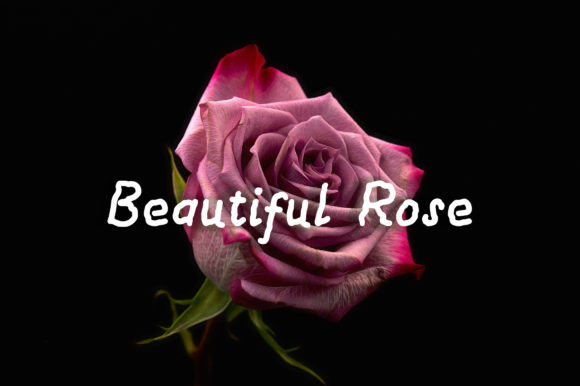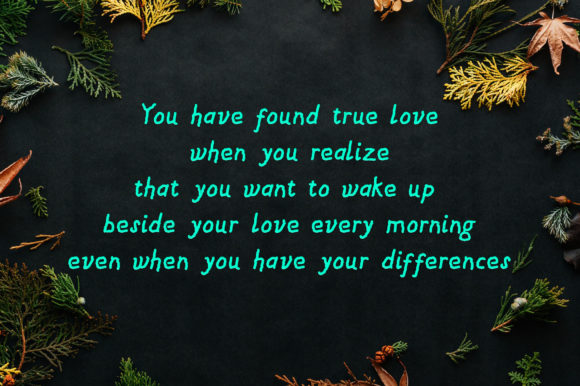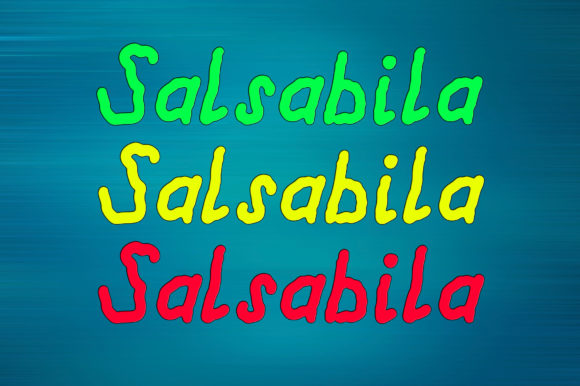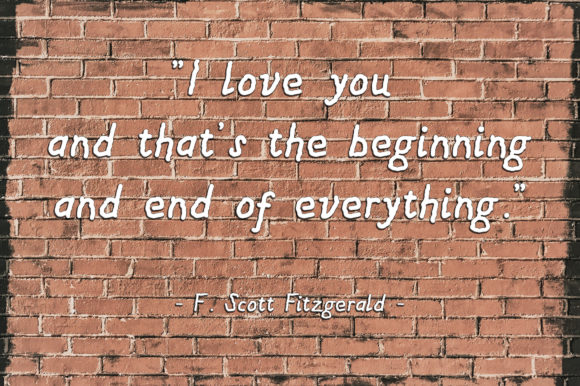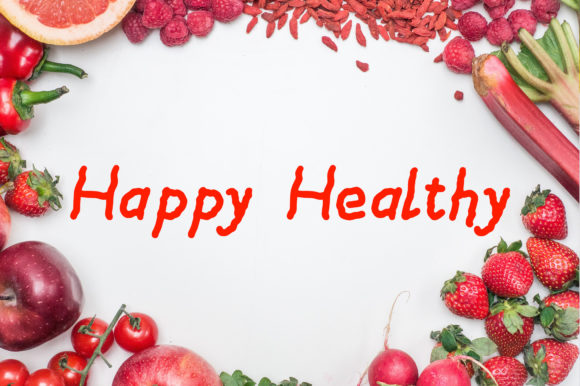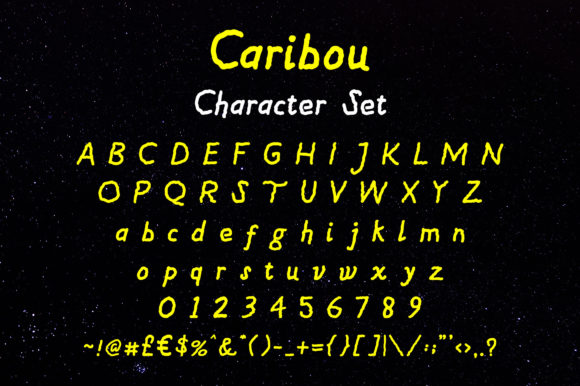
Introducing Caribou Font: The Quirky and Fun Display Font for Informal Projects
Are you looking for a font that can add a touch of playfulness and authenticity to your informal projects? Look no further than Caribou Font! This quirky and fun display font is perfect for designers and crafters who want to create beautiful and friendly typography that stands out from the crowd.
What is Caribou Font?
Caribou Font is a display font that is designed to bring a sense of fun and playfulness to your projects. Its unique and quirky design makes it perfect for informal projects such as posters, flyers, brochures, and social media graphics. The font is characterized by its bold and rounded letters, which give it a friendly and approachable feel.
Key Features of Caribou Font
• Quirky and Fun Design: Caribou Font has a unique and quirky design that is sure to grab attention.
• Playful and Authentic: The font embodies playfulness and authenticity, making it perfect for informal projects.
• Bold and Rounded Letters: The font features bold and rounded letters that give it a friendly and approachable feel.
• Perfect for Informal Projects: Caribou Font is ideal for informal projects such as posters, flyers, brochures, and social media graphics.
Why Choose Caribou Font?
There are many reasons why you should choose Caribou Font for your informal projects. Here are a few:
• Unique and Eye-Catching: Caribou Font is a unique and eye-catching font that is sure to grab attention.
• Easy to Read: The font is easy to read, even at small sizes, making it perfect for use in a variety of projects.
• Versatile: Caribou Font can be used in a variety of projects, from posters and flyers to social media graphics and brochures.
How to Use Caribou Font
Using Caribou Font is easy! Here are a few tips to get you started:
• Pair it with Other Fonts: Caribou Font pairs well with other fonts, such as sans-serif fonts and script fonts.
• Use it for Headings: Caribou Font is perfect for use in headings and titles, where its bold and rounded letters can really make an impact.
• Experiment with Colors: Caribou Font looks great in a variety of colors, so don’t be afraid to experiment and find the perfect color for your project.
Design and Crafting Applications
Caribou Font is perfect for a variety of design and crafting applications, including:
• Poster Design: Caribou Font is perfect for creating eye-catching posters that grab attention.
• Social Media Graphics: The font is ideal for creating social media graphics that stand out from the crowd.
• Crafting Projects: Caribou Font can be used in a variety of crafting projects, such as card making and scrapbooking.
• Brochure Design: The font is perfect for creating brochures that are friendly and approachable.
In conclusion, Caribou Font is a quirky and fun display font that is perfect for informal projects. Its unique and eye-catching design makes it ideal for designers and crafters who want to create beautiful and friendly typography. With its bold and rounded letters, Caribou Font is sure to grab attention and add a touch of playfulness and authenticity to your projects.